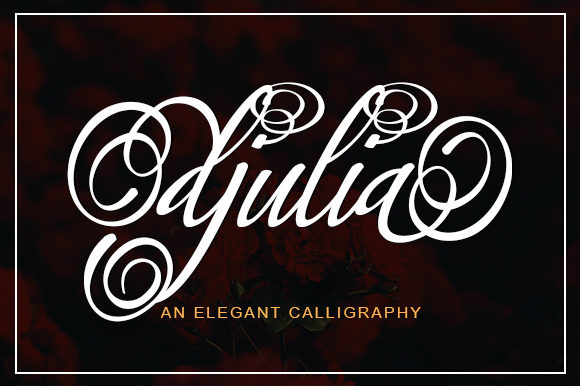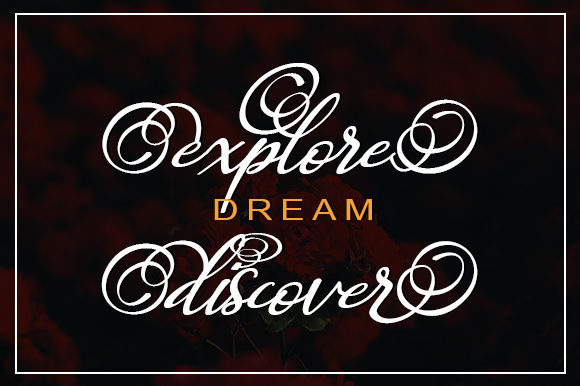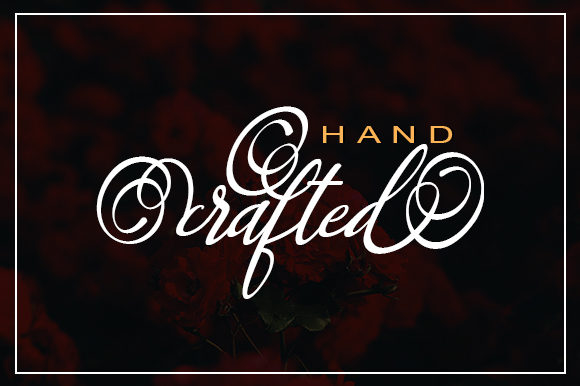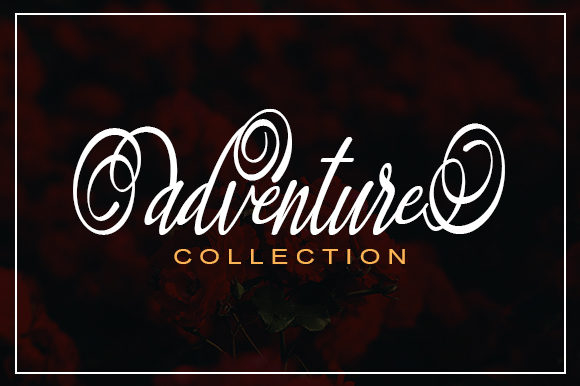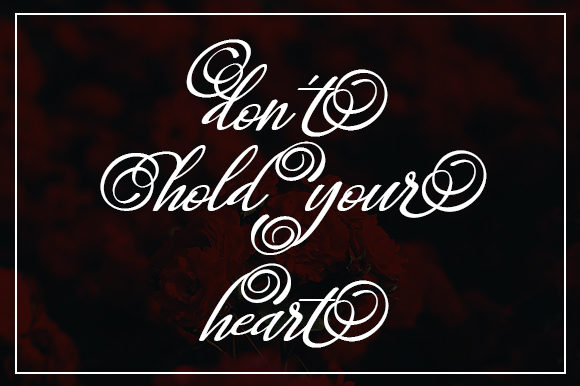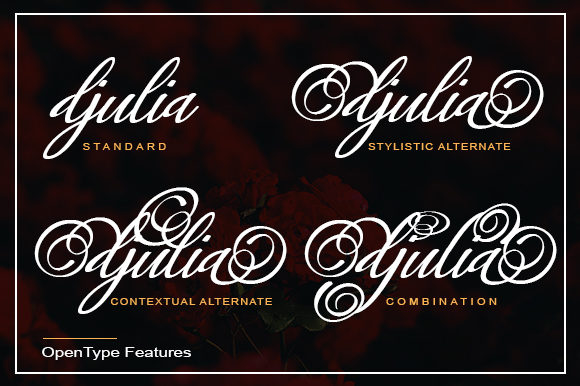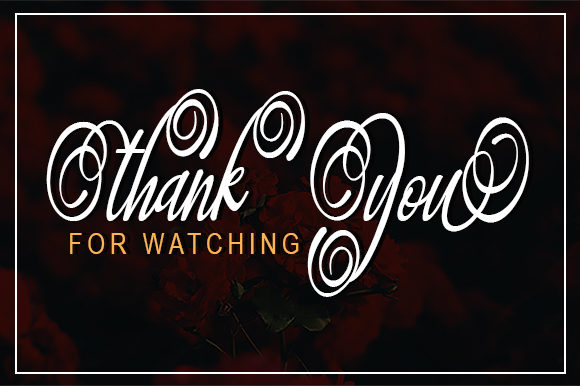
Djulia Font
About Djulia Font
Djulia is a great script font with two distinct characteristics: Delicacy & Elegance. It is a classy typeface for any design occasion!